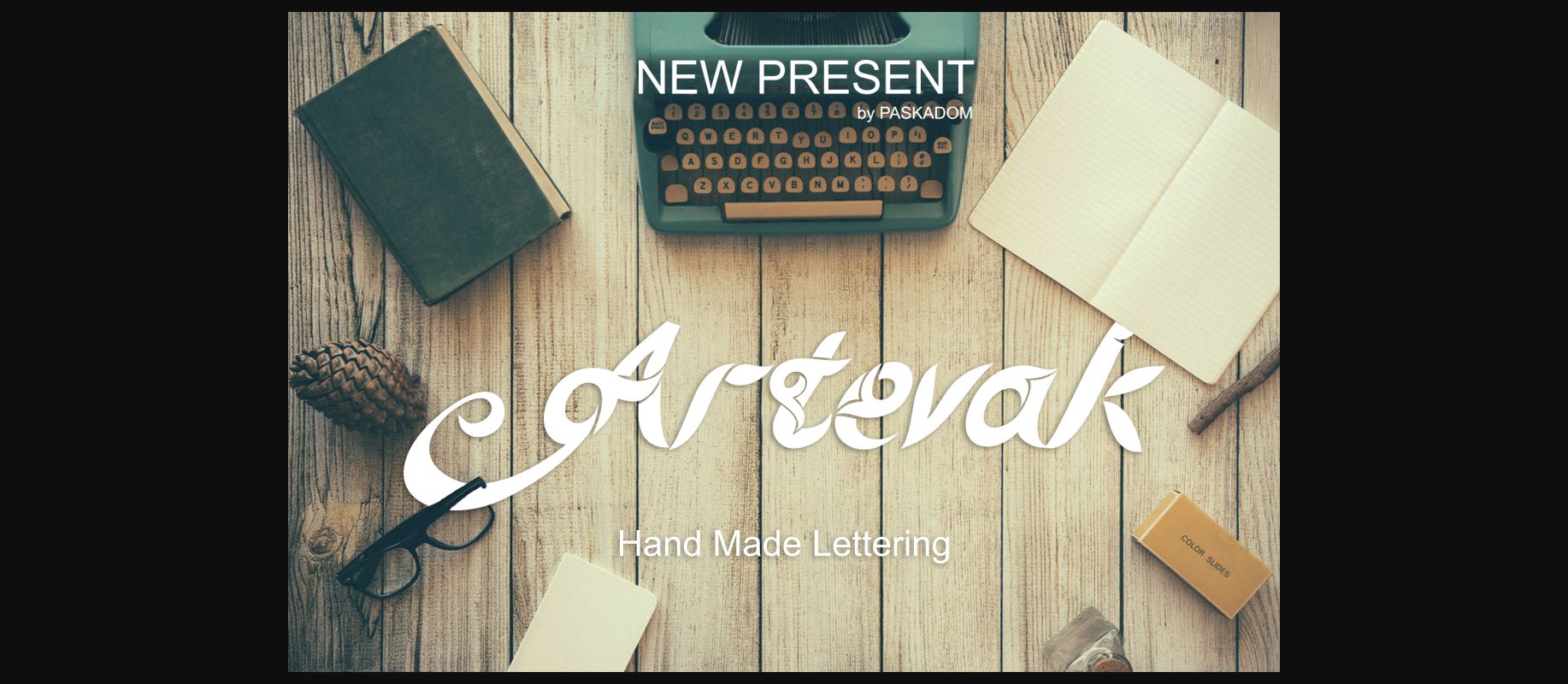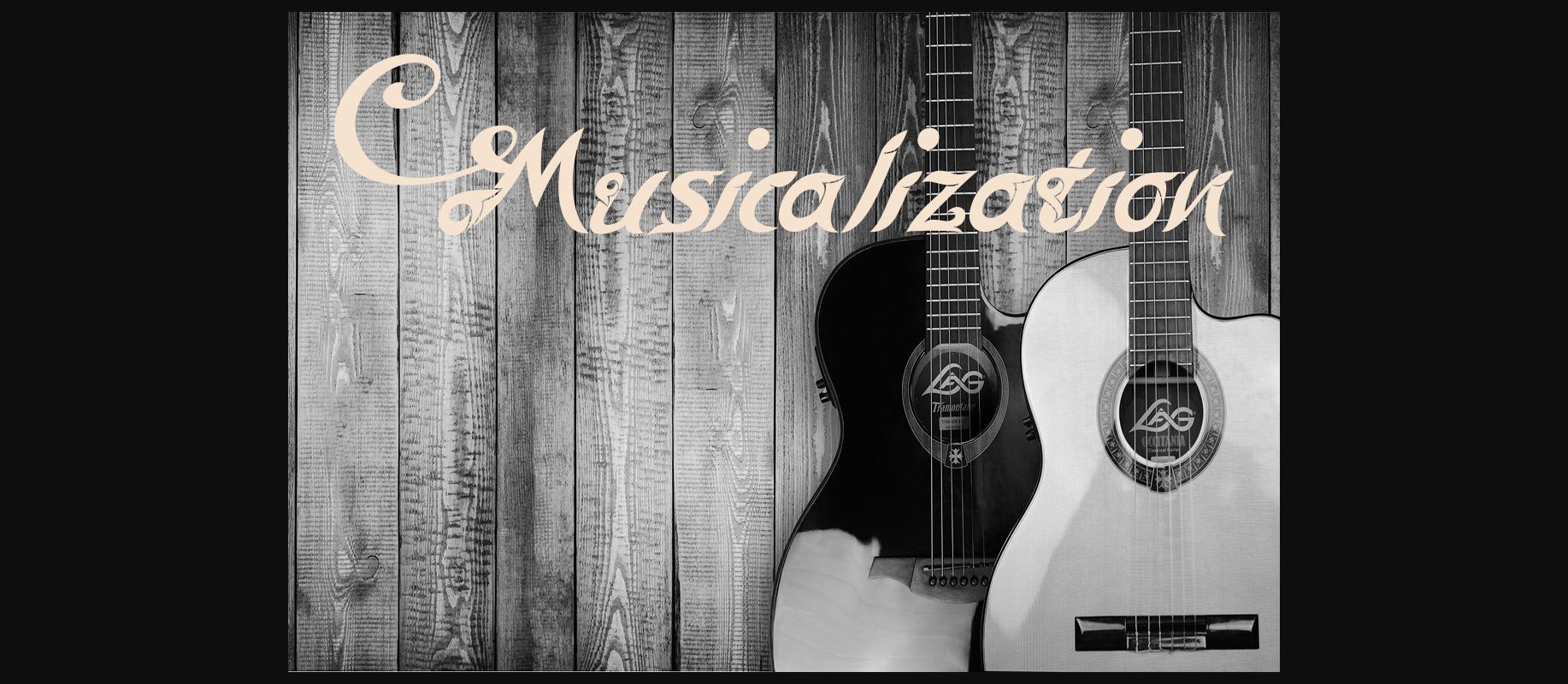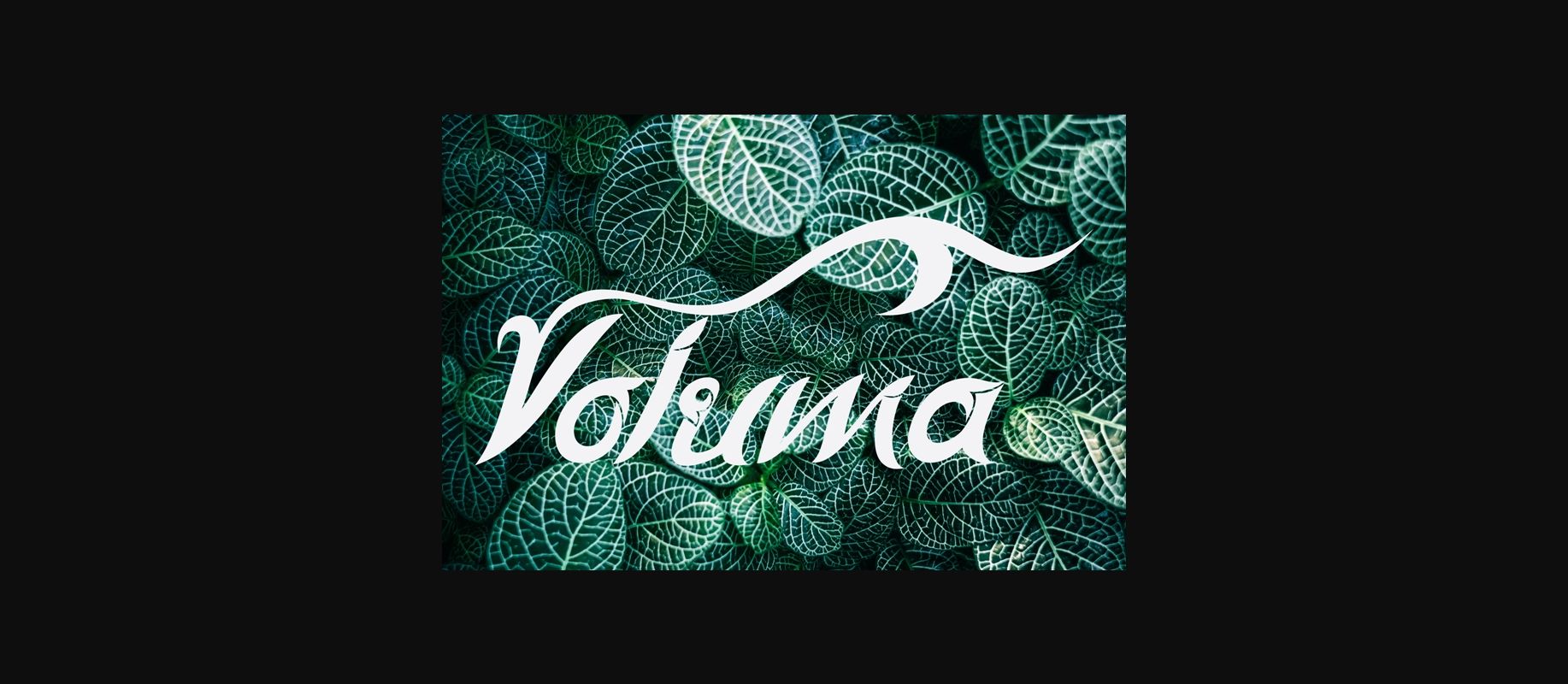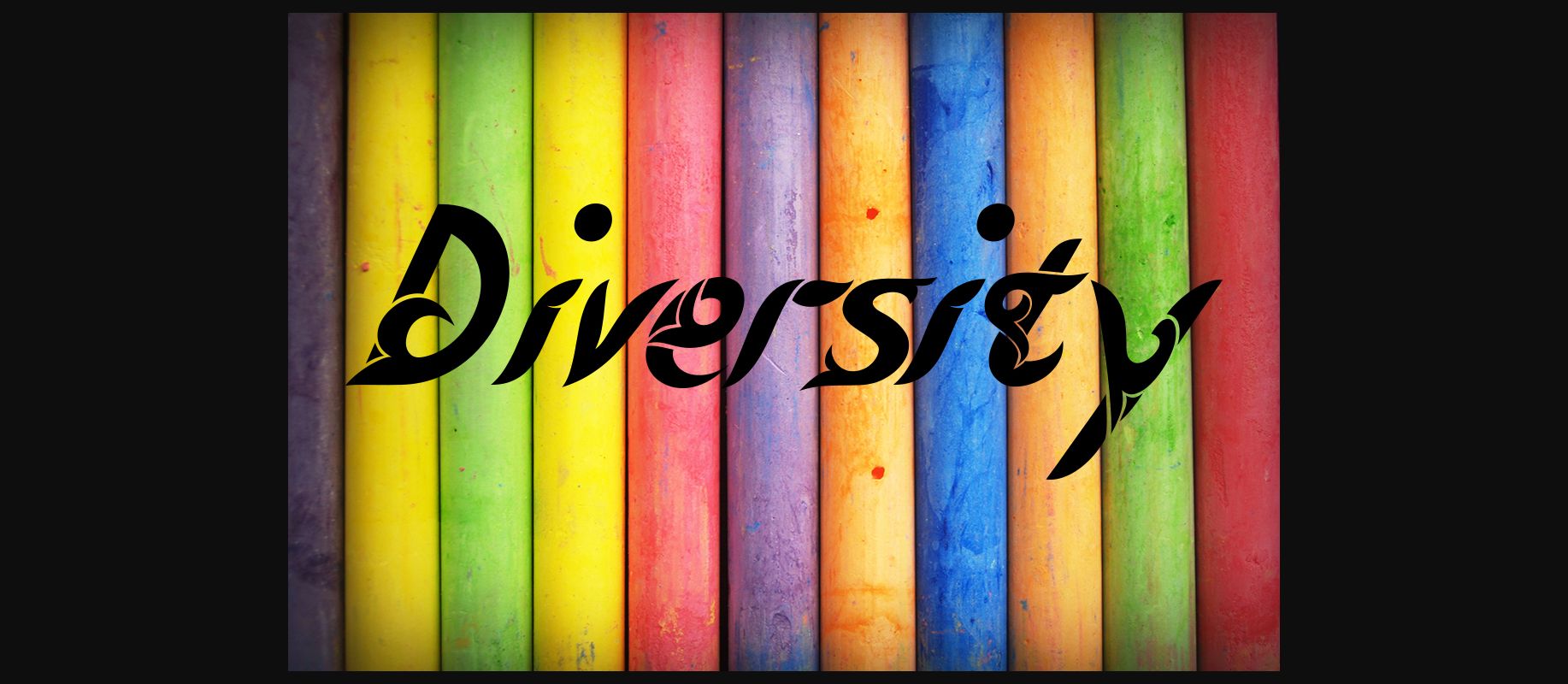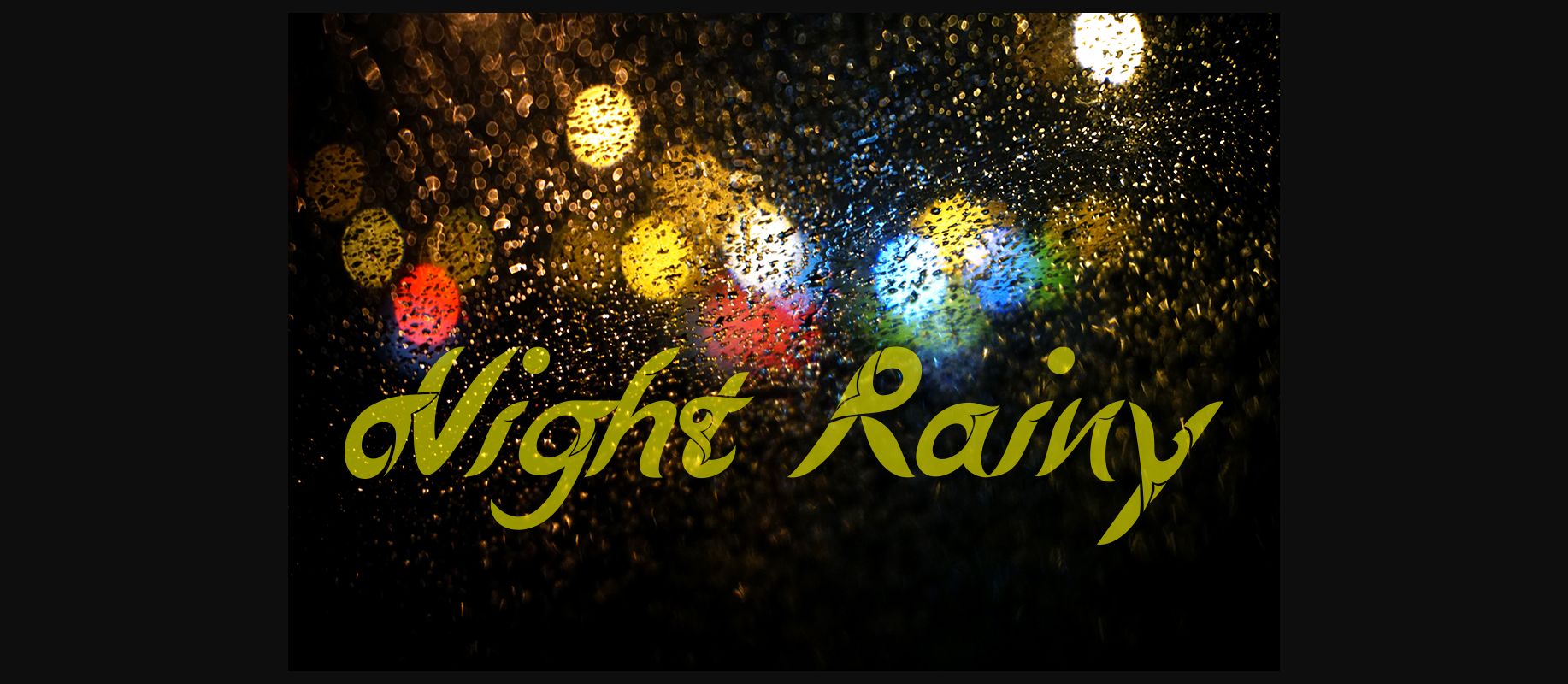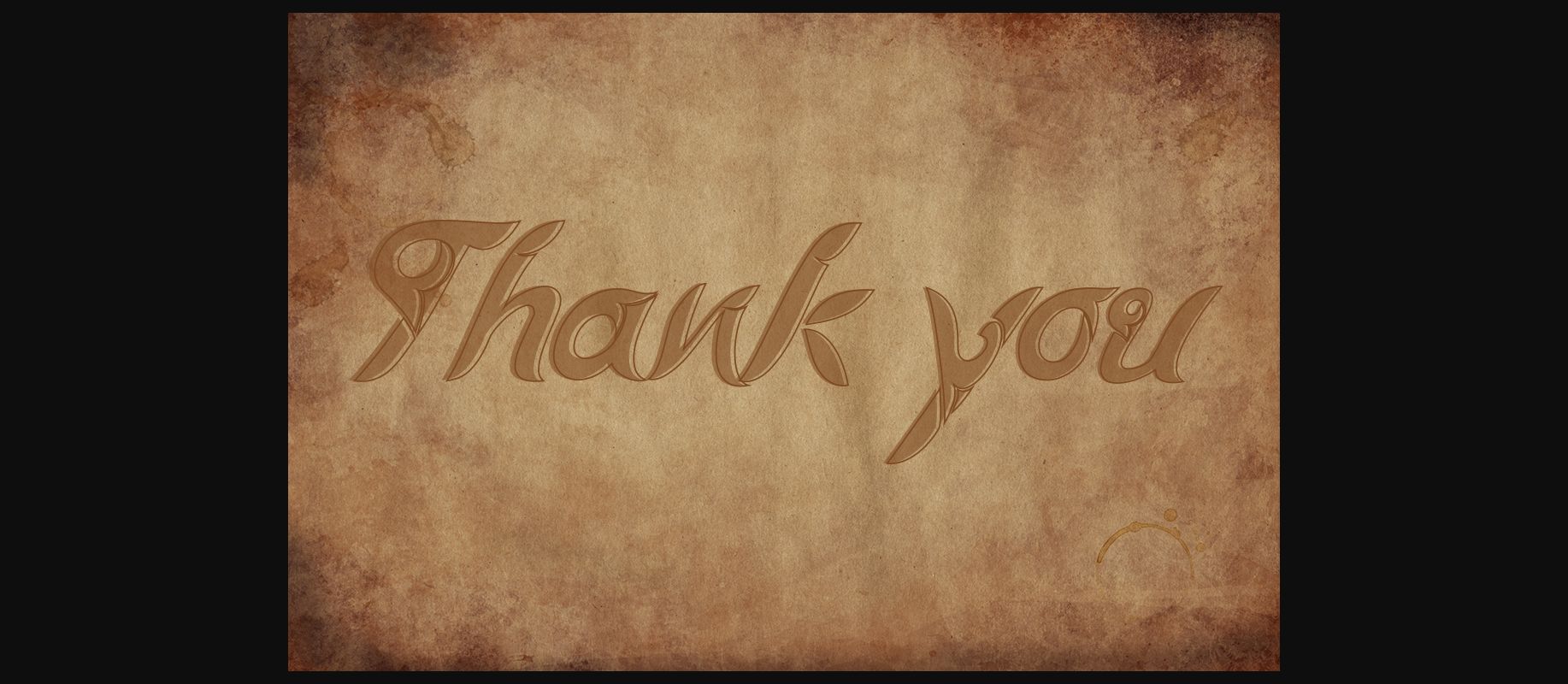
HomeDecorative FontsArtevak Font Decorative Fonts Artevak Font FacebookXPinterestWhatsApp 1 of 8 ... Artevak Font Poster 2... Artevak Font Poster 3... Artevak Font Poster 4... Artevak Font Poster 5... Artevak Font Poster 6... Artevak Font Poster 7... Artevak Font Poster 8... About Artevak Font Artevak is a tattoo/tribal style font that is suitable for different types of projects. DOWNLOAD NOW People also explored Sweety Font Michelle Font Delauney Font Skaner Bold Font Rolest Font Glorynight Font Cute Leisha Font Rouweth Font Manella Symone Font 363 0 TagsArtevakArtevak Font Previous articleSylabus FontNext articleSanzen Font LEAVE A REPLY Cancel reply Comment: Please enter your comment! Name:* Please enter your name here Email:* You have entered an incorrect email address! Please enter your email address here Website: Save my name, email, and website in this browser for the next time I comment. Personal Use Free Vinograd Personal Use Free Read more about this font Bolt Electric Personal Use Free Read more about this font Valentines Day Personal Use Free Read more about this font Po Beef Personal Use Free Read more about this font BLOG Modern Sans-Serif Fonts That Brands Love in 2025 In 2025, modern sans-serif fonts remain a top choice for brands looking to project clarity, professionalism, and... Top 7 Google Fonts Alternatives for Faster and Privacy-Friendly Web Design (2025) The 10 Best Handwriting Fonts to Add Personality to Your Designs Best Fonts for YouTube Videos: Make Your Thumbnails Stand Out